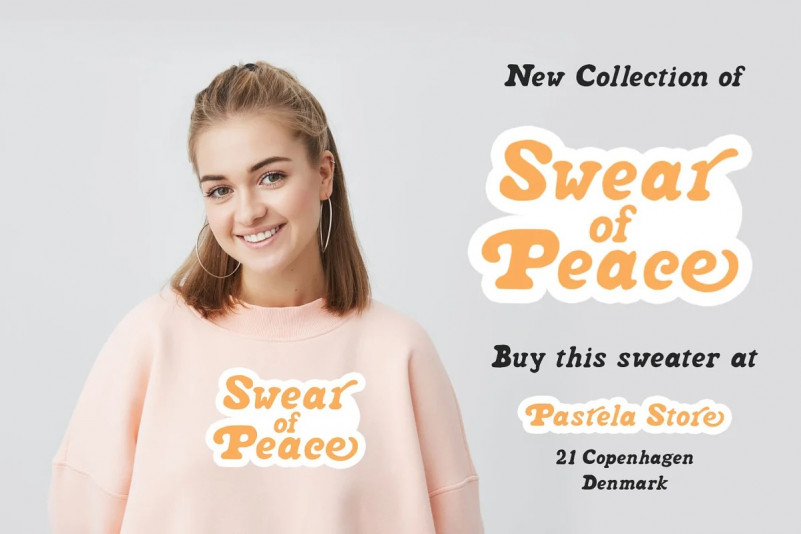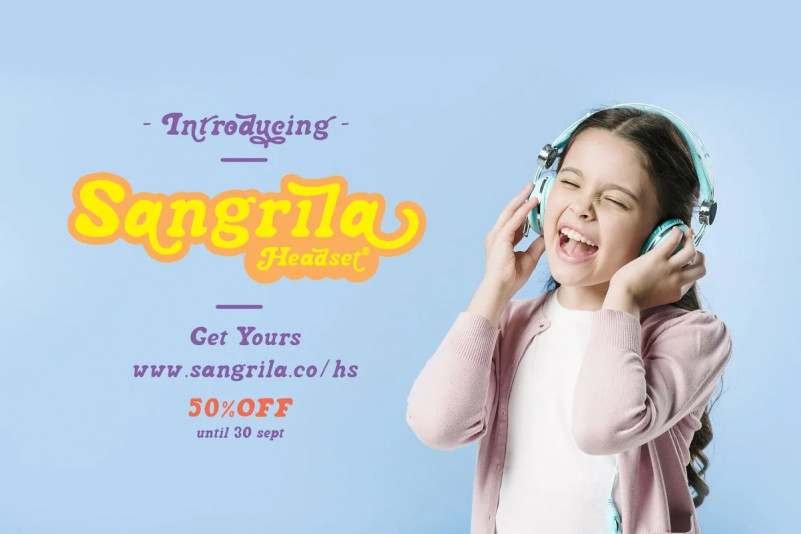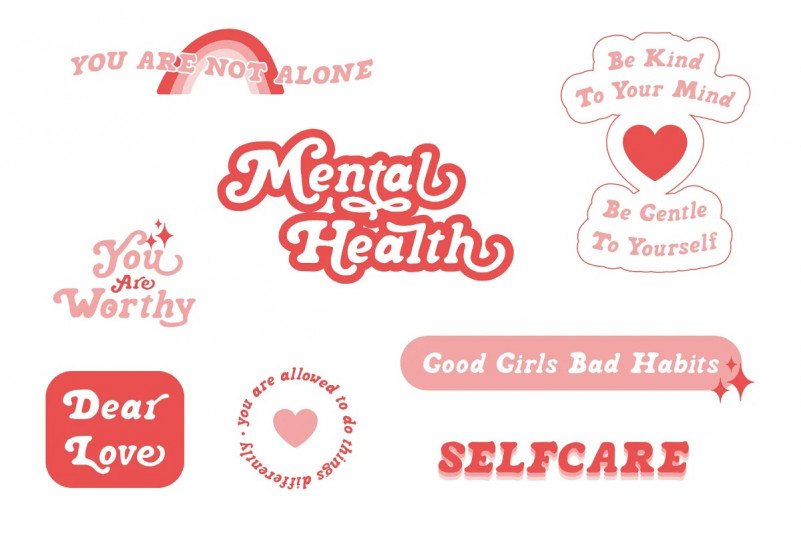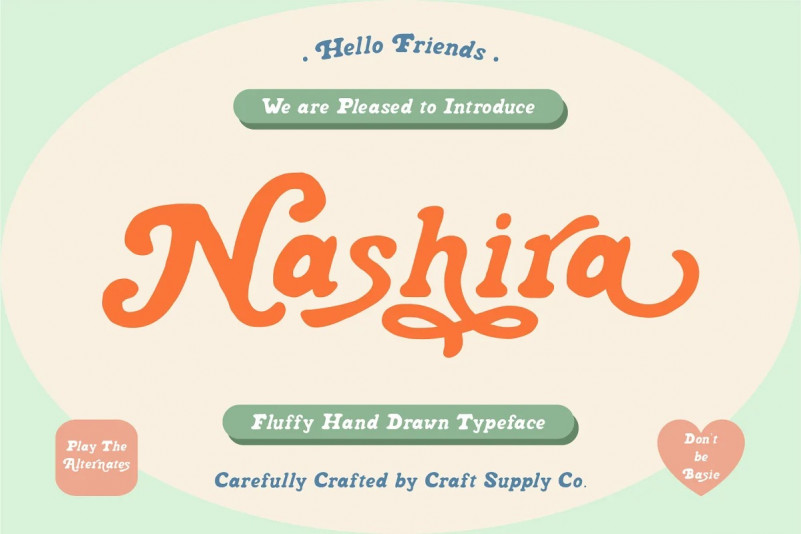
Nashira display Font
This typeface designed by Craft Supply Co is a serif display font that is elegant and feminine with beautiful ligature. Just use your imagination and your project will become more alive and look great than ever with Nashira – Fluffy Hand Drawn Typeface
You want to make a greeting card or a package design, or even a brand identity, craft design, any DIY project, book title, wedding font, pop vintage design, retro design or any purpose to make your art / design project look pretty and trendy? Feel free to play with this fonts!